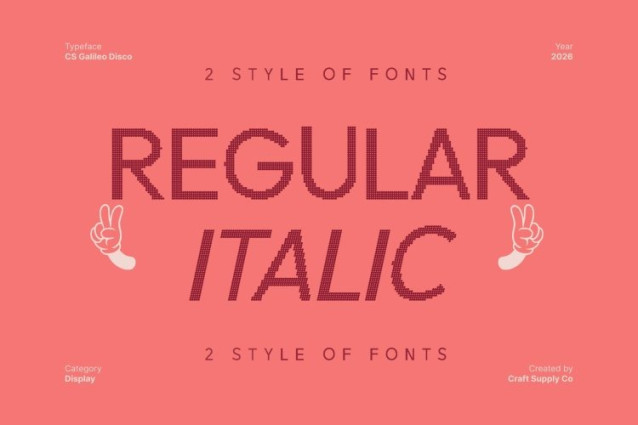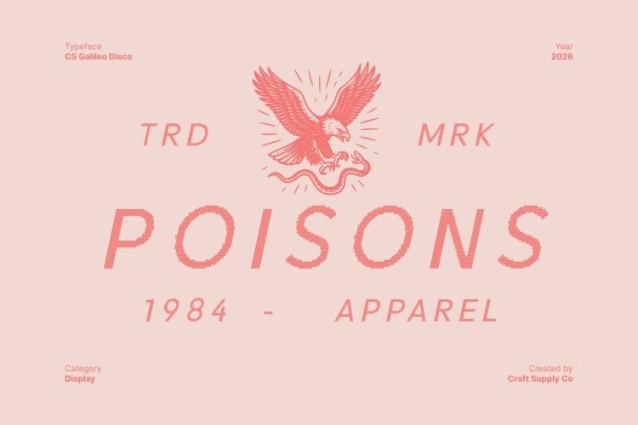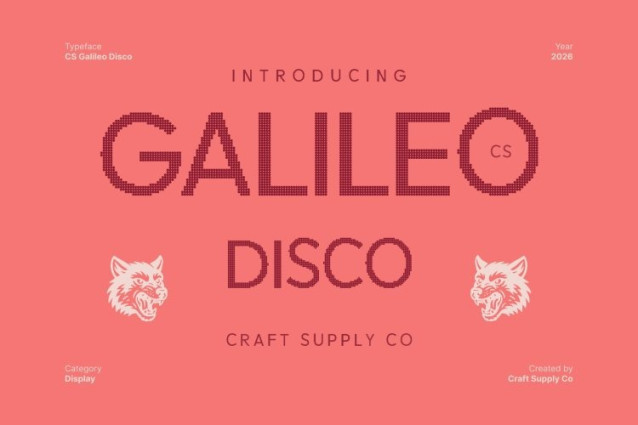
CS Galileo Disco Font
CS Galileo Disco Font This is a modern sans serif font that blends minimalist precision, clean lines, and geometric balance with a vibrant disco attitude. Its evenly structured letterforms maintain clarity and order, while the disco-inspired styling introduces a sense of rhythm, movement, and visual excitement, transforming clean typography into something bold, lively, and expressive.
Balanced Structure with Radiant Clarity
Built on firm proportions and geometric accuracy, delivers excellent legibility across digital and print applications. The clean construction ensures a professional appearance, while subtle disco energy adds a festive glow like light reflecting through a modern dance floor keeping the font engaging without sacrificing readability.
Versatile for Corporate, Creative, and Event-Driven Design
From branding systems and UI/UX interfaces to editorials, posters, and modern event visuals, adapts effortlessly. Its neutral geometric foundation supports professional and minimalist layouts, while its energetic personality makes it equally suitable for music events, nightlife promotions, and dynamic creative campaigns.
Efficiency Meets Modern Glamour
This font embodies functional design elevated with style. Ideal for tech brands, startups, digital platforms, fashion-forward campaigns, and contemporary branding, it offers a strong typographic foundation that feels clean, modern, and efficient enhanced by a glamorous, festive energy inspired by the pulse of the disco era.